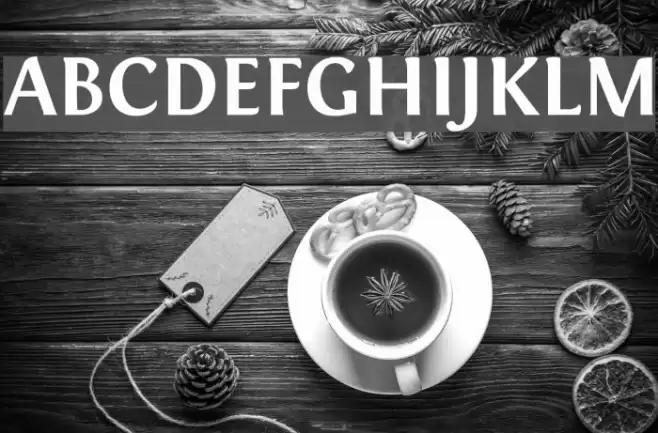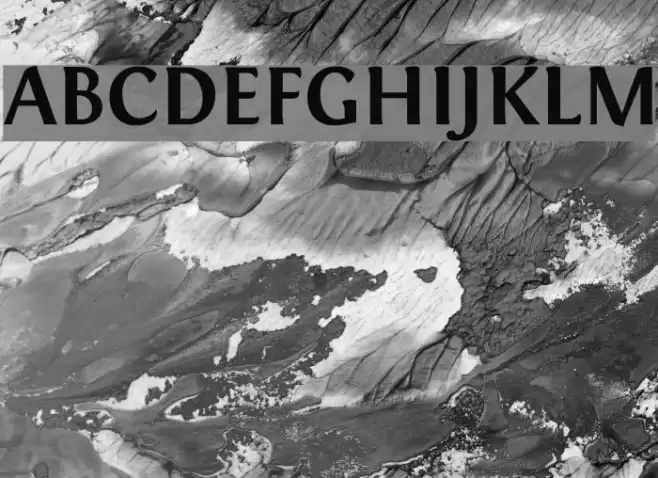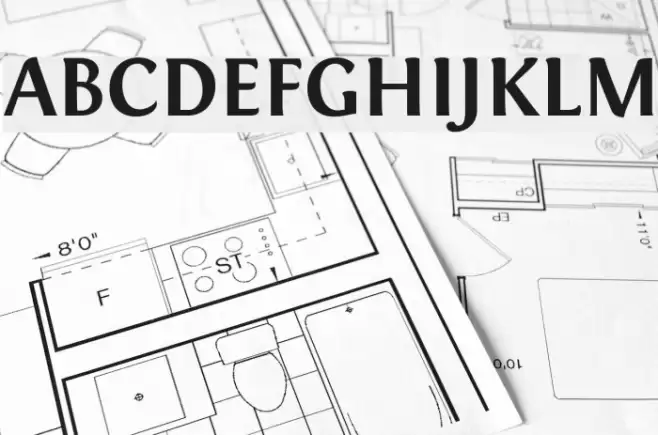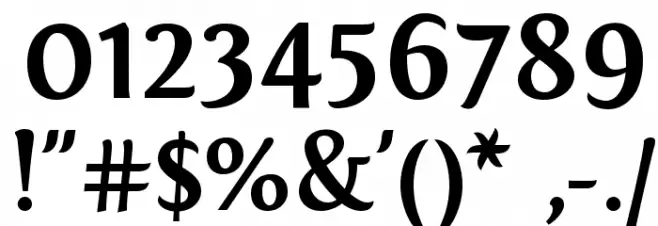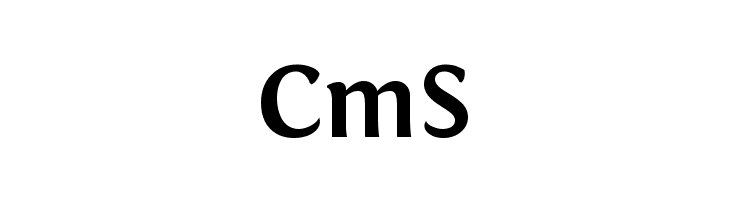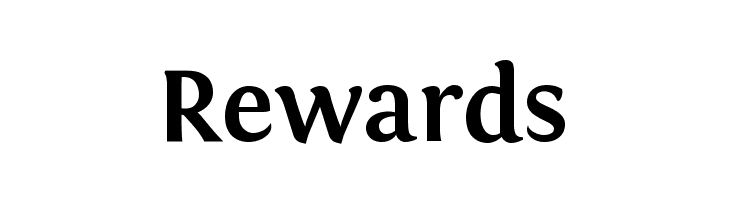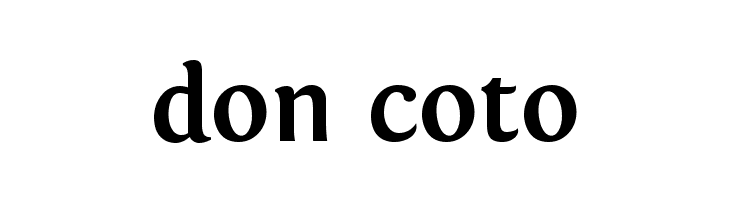
Fontin Bold Font
Fontin Bold Description
This font features a bold and robust serif design, characterized by its strong and pronounced strokes. The uppercase letters exhibit a classic and authoritative presence, while the lowercase letters maintain a harmonious balance with slightly rounded edges. The numerals are clear and easily distinguishable, making them suitable for various applications. The special characters are well-integrated, ensuring consistency across the typeface. Overall, this font exudes a timeless elegance, making it versatile for both modern and traditional projects.
A bold serif font with strong strokes and a classic, elegant style from Calligraphic fonts.
- Proposed Projects: Ideal for book covers, editorial design, branding, and formal invitations.
- Overall Style: Classic